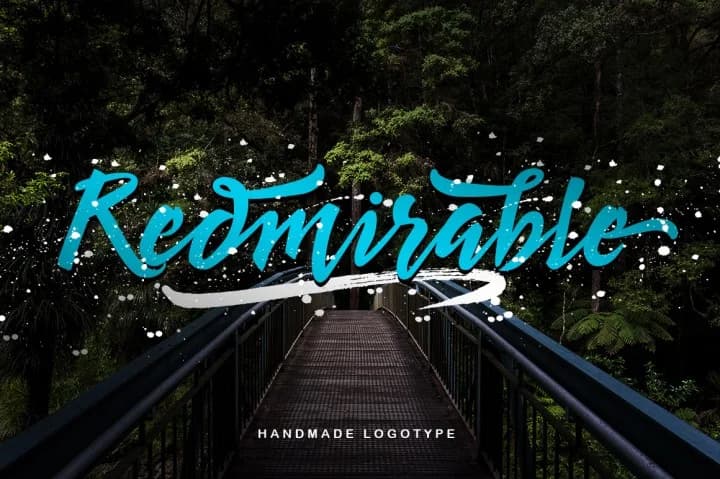
Redmirable Font by Mindtype Co. is a flowing handwritten script with graceful swash alternates that bring warmth and personality to sophisticated designs. The typeface balances organic letterforms with refined control, making it work equally well in luxury branding contexts or intimate personal projects. Its approachable elegance opens possibilities across numerous design disciplines.
This script particularly shines in specific creative applications. Wedding invitation suites gain timeless charm from Redmirable's flowing letterforms and flourishes, while boutique cosmetics and skincare packaging benefit from the typeface's balance of hand-crafted feel with professional polish. Social media graphics for lifestyle brands and small businesses gain authenticity from the natural letterforms, and DIY crafters appreciate the clarity that translates beautifully into custom vinyl decals, heat transfers, and personalized gifts. Editorial layouts and magazine spreads also benefit from the human touch Redmirable brings without sacrificing readability or legibility at various scales.
The inclusive glyph set and swash alternates offer designers valuable flexibility for customization and creative expression in their typography choices. Whether working on a cohesive brand identity, event materials, or craft projects, the typeface's versatility makes it a capable choice for multiple design scenarios. Discover Redmirable Font on Creative Fabrica and add this versatile script to your design collection.
Redmirable Font is a script font that shines as a display or heading face. Pair it with a clean sans-serif or serif font for body text β the contrast creates a clear hierarchy while the two styles stay balanced and easy to read.
Redmirable Font